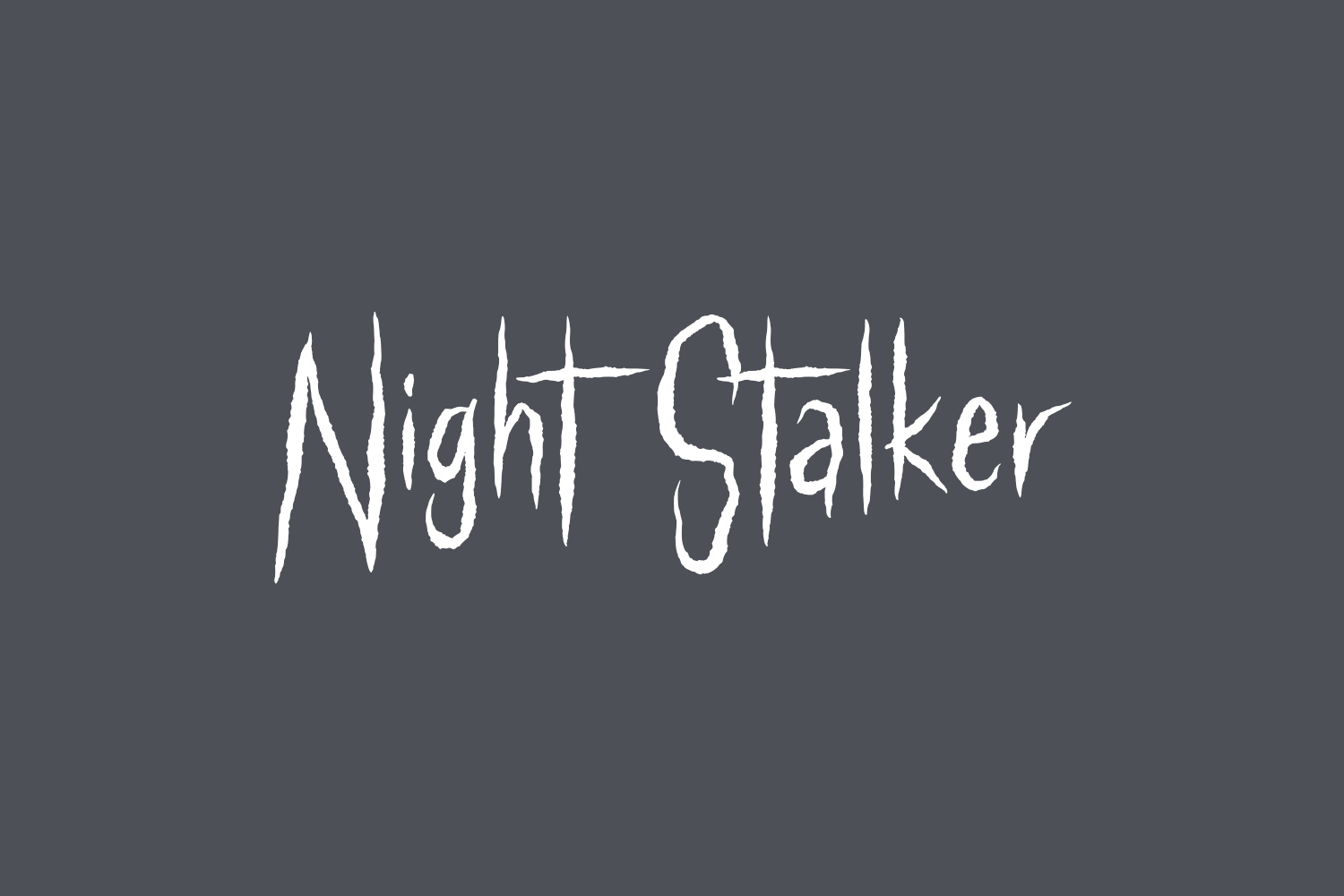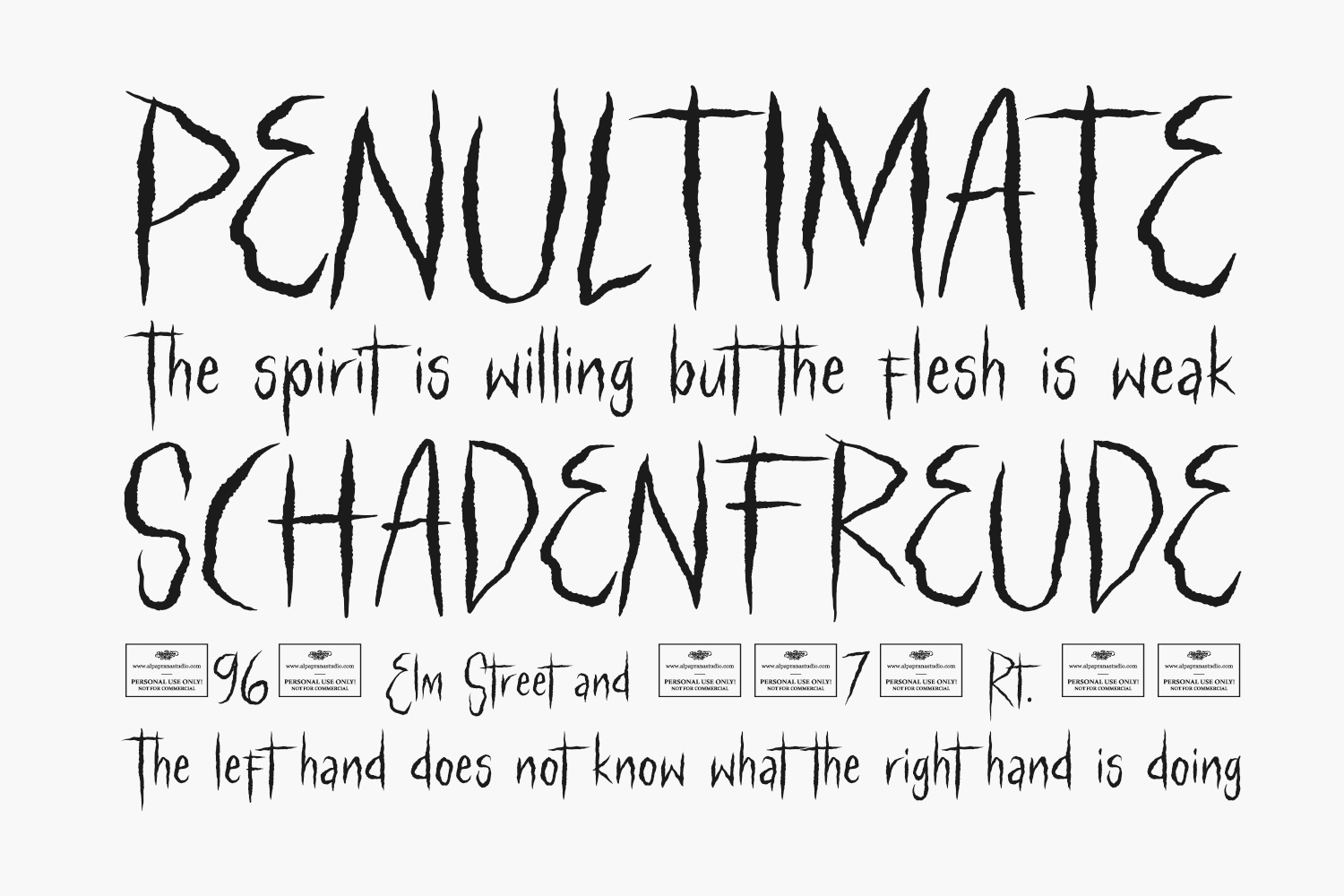
Night Stalker Free Font is a chilling horror font that exudes an eerie atmosphere. It’s the ideal choice for branding, logo design, lettering, clothing, posters, magazines, packaging, shopping bags, t-shirts, book covers, photography, special events, and various other design projects where you want to instill a sense of fear and intrigue. Night Stalker Free Font is a demo and free for personal use only. Please purchase the full version for commercial use.